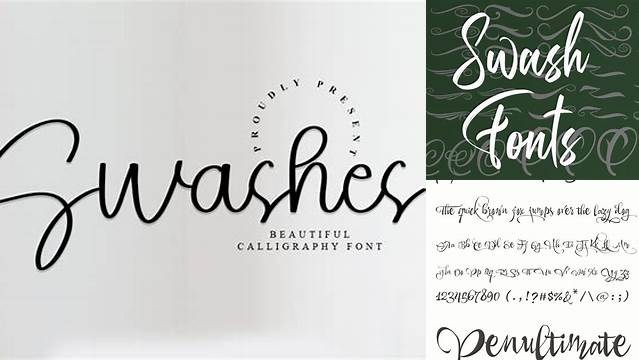
Hey guys! Are you on the hunt for some gorgeous free script fonts with swashes? You've come to the right place! Swashes, those elegant, decorative strokes, can really elevate your design projects, adding a touch of sophistication and personality. Whether you’re crafting wedding invitations, branding materials, or social media graphics, the right font can make all the difference. This article is going to be your ultimate guide to finding and using these beautiful fonts. We'll delve into what makes script fonts with swashes so special, where to find them, and how to use them effectively. So, buckle up and let's dive in!
What are Script Fonts with Swashes?
So, what exactly are we talking about when we say "script fonts with swashes"? Well, let's break it down. Script fonts, as the name suggests, mimic the flowing strokes of handwriting. They come in various styles, from casual and playful to formal and elegant. Now, add swashes into the mix, and you get something truly special. Swashes are those extended, decorative strokes that often embellish the beginning or end of a letter. They can add a flourish, a touch of whimsy, or a dash of formality to your text. Think of them as the icing on the cake for your typography! Free script fonts with swashes are particularly exciting because they offer a way to access high-quality, visually appealing typefaces without breaking the bank. In the world of design, where budget considerations are often paramount, finding free resources like these can be a game-changer. These fonts are not only aesthetically pleasing but also versatile, fitting into various design contexts from wedding invitations and greeting cards to logos and branding materials. The key is to use them judiciously, ensuring they enhance the overall design rather than overshadowing the message. So, understanding the nuances of script fonts and swashes is crucial for any designer looking to elevate their work. Let's explore some specific use cases and design tips in the sections below to help you master the art of incorporating these fonts into your projects.
Why Use Script Fonts with Swashes?
Why should you even bother with free script fonts with swashes in the first place? Great question! The answer is simple: they add character and charm that other fonts just can't match. Imagine you're designing a logo for a boutique bakery. A clean, sans-serif font might look professional, but it lacks the warmth and personality that a script font with swashes can bring. The flowing lines and decorative flourishes evoke a sense of handcrafted goodness, instantly making the brand feel more inviting and approachable. But it’s not just about aesthetics; these fonts also serve a practical purpose. They can help to create a visual hierarchy, drawing the eye to specific words or phrases. For example, using a script font with swashes for a headline or call-to-action can make it stand out from the body text, guiding the reader's attention. Moreover, the elegance of script fonts with swashes makes them ideal for projects that need a touch of sophistication, such as wedding invitations or certificates. The swashes can add a sense of occasion and formality, making the design feel more polished and refined. However, it’s important to strike a balance. Overusing swashes can make your design look cluttered and overwhelming. The key is to use them sparingly and strategically, letting them complement the overall design rather than dominating it. Understanding the impact of these fonts on the visual communication of your message is crucial for effective design. So, next time you’re looking to add a bit of flair to your project, consider reaching for a script font with swashes. You might just find it’s the perfect touch you’ve been missing!
Where to Find Free Script Fonts with Swashes
Okay, so you’re sold on the idea of using free script fonts with swashes. Awesome! But where do you actually find them? The internet is a vast place, and sifting through countless fonts can be overwhelming. Don't worry, I've got you covered. There are several fantastic websites that offer a wide selection of free fonts, including those with beautiful swashes. Some of the most popular resources include Font Squirrel, DaFont, and Google Fonts. Font Squirrel is known for its high-quality, commercially licensed fonts, making it a great option if you plan to use the fonts for business projects. DaFont is a treasure trove of free fonts, with a huge variety of styles and designs. Google Fonts is another excellent choice, offering a curated selection of open-source fonts that are easy to use and integrate into websites. When browsing these sites, be sure to use relevant keywords like "script," "swashes," or "calligraphy" to narrow down your search. Also, pay attention to the licensing terms. While many fonts are free for personal use, some may have restrictions for commercial projects. It’s always a good idea to double-check the license before using a font to avoid any legal issues down the road. Another tip is to look for font bundles or collections. These can be a great way to get a variety of fonts in one go, often at a discounted price (or even for free!). Keep an eye out for promotional offers and freebies from font designers and foundries. Social media platforms like Behance and Dribbble can also be excellent places to discover new and emerging font designers offering free resources. So, with a little bit of searching, you'll be swimming in a sea of stunning script fonts with swashes in no time!
How to Use Script Fonts with Swashes Effectively
Finding free script fonts with swashes is just the first step. The real magic happens when you know how to use them effectively. Trust me, a beautiful font can quickly turn into a design disaster if it's not handled with care. So, let’s talk about some key principles for using these fonts like a pro. First and foremost, readability is king. While swashes can add a touch of elegance, they can also make a font difficult to read if overused. The trick is to use them sparingly, especially in body text. Save the swashes for headlines, logos, or short phrases where they can make a visual impact without compromising legibility. Another important tip is to consider the context of your design. A formal script font with elaborate swashes might be perfect for a wedding invitation, but it would look out of place on a tech company's website. Think about the tone and message you want to convey, and choose a font that aligns with that. Pairing fonts is also crucial. Script fonts with swashes often work best when paired with a simpler, more neutral font for body text. This creates a visual contrast that is pleasing to the eye and enhances readability. A classic pairing is a script font for headings and a sans-serif font for the main text. Experiment with different font combinations to see what works best for your project. Finally, pay attention to kerning and spacing. Script fonts, in particular, often require manual adjustments to ensure the letters flow smoothly together. Adjusting the spacing between letters can make a huge difference in the overall look and feel of your design. So, keep these tips in mind, and you'll be well on your way to creating stunning designs with script fonts and swashes. Let’s explore some specific examples and use cases in the following sections to further illustrate these principles.
Different Styles of Script Fonts with Swashes
One of the best things about free script fonts with swashes is the sheer variety available. It’s not just one style fits all; there’s a whole spectrum to explore! From elegant calligraphy-inspired fonts to playful, whimsical designs, there’s a script font with swashes for every mood and occasion. Let's take a closer look at some of the different styles you might encounter. First up, we have the classic calligraphy styles. These fonts mimic the look of traditional handwriting, with flowing lines and delicate swashes. They’re perfect for projects that need a touch of elegance and formality, such as wedding invitations, certificates, or high-end branding. Think sophisticated curves and refined details. Next, we have the more casual script fonts. These fonts tend to be less formal and more playful, with a relaxed, handwritten feel. They often feature bolder strokes and more whimsical swashes, making them ideal for projects that need a touch of personality, such as social media graphics, blog headers, or greeting cards. Then there are the modern script fonts, which blend the elegance of traditional scripts with a contemporary twist. These fonts often have cleaner lines and a more minimalist aesthetic, making them versatile enough for a wide range of projects, from logos to website designs. Finally, don’t forget the vintage-inspired script fonts. These fonts evoke a sense of nostalgia, with retro-style swashes and a classic feel. They’re perfect for projects that need a touch of old-world charm, such as vintage posters, retro logos, or themed invitations. Understanding the nuances of each style will help you choose the perfect font for your specific project. So, take some time to explore the different options and discover the style that resonates with you and your design goals. In the next section, we’ll delve into some popular font choices and discuss why they work so well.
Popular Free Script Fonts with Swashes
Okay, let’s get down to the nitty-gritty and talk about some specific free script fonts with swashes that you should definitely check out. With so many options available, it can be hard to know where to start, so I've rounded up a few popular choices that are sure to impress. First on the list is "Great Vibes." This font is a classic for a reason. It's elegant, flowing, and features beautiful swashes that add a touch of sophistication to any design. It’s particularly popular for wedding invitations and formal announcements. Another fantastic option is "Pacifico." This font has a more casual and playful feel, with rounded letters and a friendly vibe. It’s perfect for projects that need a touch of personality, such as blog headers, social media graphics, or greeting cards. If you're looking for something a bit more modern, check out "Playlist Script." This font has a trendy, hand-lettered feel with bold strokes and stylish swashes. It’s a great choice for logos, branding materials, and website designs. For a vintage-inspired option, consider " চ্যানেলেscript." This font evokes a sense of nostalgia with its retro swashes and classic feel. It’s perfect for projects that need a touch of old-world charm, such as posters, logos, or themed invitations. And let's not forget " শিখেছি." This font is a versatile option with a clean and elegant look. It features subtle swashes that add a touch of sophistication without being overwhelming. It’s a great choice for a wide range of projects, from business cards to website headlines. These are just a few examples, of course, and there are countless other amazing free script fonts with swashes out there waiting to be discovered. The key is to explore, experiment, and find the fonts that best suit your style and design needs. In the following sections, we’ll dive deeper into how to choose the right font for different types of projects and design contexts.
How to Choose the Right Font for Your Project
Choosing the right free script font with swashes for your project can feel like a daunting task, but it doesn't have to be! It’s all about understanding your project's needs and matching them with the right typeface. Let’s break down some key considerations to help you make the best choice. First, think about the tone and message of your project. Are you aiming for elegance and formality, or something more casual and playful? A wedding invitation, for example, will likely call for a more refined script font with delicate swashes, while a children's book might benefit from a font with a whimsical, hand-lettered feel. Next, consider your target audience. Who are you trying to reach? A font that appeals to a young, modern audience might not resonate with an older, more traditional demographic. Think about their preferences and expectations when choosing a font. Readability is another crucial factor. As we discussed earlier, swashes can sometimes make a font difficult to read, especially in large blocks of text. Make sure the font you choose is legible in the context you plan to use it. If you're using a script font with swashes for a headline, for example, ensure it’s large enough and clear enough to be easily read. Font pairing is also essential. How will your script font work with other fonts in your design? As a general rule, it’s best to pair a script font with a simpler, more neutral font for body text. This creates a visual contrast that enhances readability and adds visual interest. Consider the overall design aesthetic. Does the font fit in with the other elements of your design, such as colors, images, and layout? The font should complement the overall look and feel of your project, not clash with it. Finally, don’t be afraid to experiment! Try out different fonts and see what works best. You might be surprised at the combinations you discover. In the next section, we'll explore some common design mistakes to avoid when using script fonts with swashes, so you can ensure your projects look polished and professional.
Common Mistakes to Avoid When Using Script Fonts with Swashes
Using free script fonts with swashes can really elevate your designs, but it's also easy to make mistakes if you're not careful. Let’s dive into some common pitfalls and how to avoid them, so you can create stunning visuals every time. One of the biggest mistakes is overusing swashes. Swashes are beautiful, but they can quickly become overwhelming if used too much. Remember, less is often more. Use swashes sparingly, focusing on key words or phrases where they can make the most impact. Avoid using them in body text or in every word of a headline. Another common mistake is choosing a font that is too difficult to read. Script fonts, by their nature, can be more challenging to read than simpler fonts like sans-serifs. When you add swashes into the mix, readability can decrease further. Always prioritize readability, especially in body text. If a font looks beautiful but is hard to decipher, it’s probably not the right choice for your project. Poor font pairing is another frequent issue. Pairing a script font with another overly decorative font can create a cluttered and confusing design. As we’ve discussed, it’s generally best to pair a script font with a simpler, more neutral font. This creates a visual hierarchy and ensures that your text is easy to read. Ignoring kerning and spacing is another mistake that can detract from the overall look of your design. Script fonts often require manual adjustments to the spacing between letters to ensure they flow smoothly together. Pay attention to the kerning and spacing of your font, and make adjustments as needed. Finally, using a font that doesn’t match the tone of your project is a common pitfall. A formal script font with elaborate swashes might be perfect for a wedding invitation, but it would look out of place on a tech company's website. Choose a font that aligns with the message and style of your project. By avoiding these common mistakes, you can ensure that your designs look polished, professional, and effective. In the next section, we’ll explore some tips for pairing script fonts with other typefaces, so you can create harmonious and visually appealing designs.
Tips for Pairing Script Fonts with Other Typefaces
Font pairing is an art, and mastering it is essential for creating visually appealing designs. When it comes to free script fonts with swashes, the right pairing can make all the difference. Here are some tips to help you create harmonious and effective font combinations. The golden rule of font pairing is to create contrast. Since script fonts are decorative and eye-catching, they generally pair best with simpler, more neutral fonts. This contrast helps to balance the design and ensures that the script font stands out without overwhelming the overall look. A classic pairing is a script font with a sans-serif font. Sans-serif fonts are clean and modern, providing a nice counterpoint to the flowing lines and decorative swashes of a script font. This combination works well for a variety of projects, from websites to logos to print materials. Another effective pairing is a script font with a serif font. Serif fonts have small strokes or